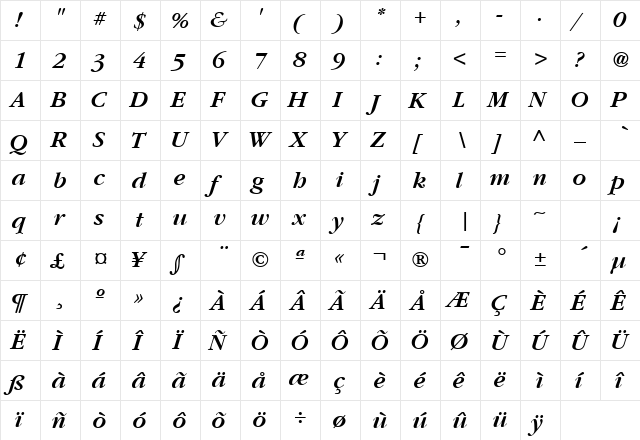
GarryMondrian5 SBldItalicSH
Design Context for GarryMondrian5 Typeface
GarryMondrian5 offers clean, dependable letterforms without strong stylistic allegiance, making it a practical choice for designers who need flexibility. The slanted form adds forward momentum and visual energy.